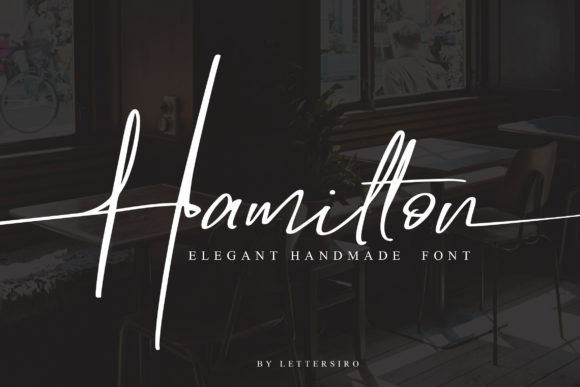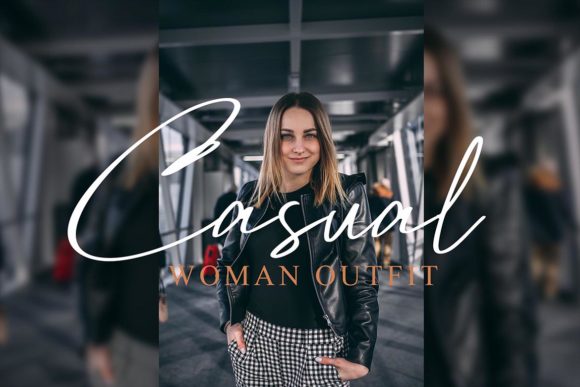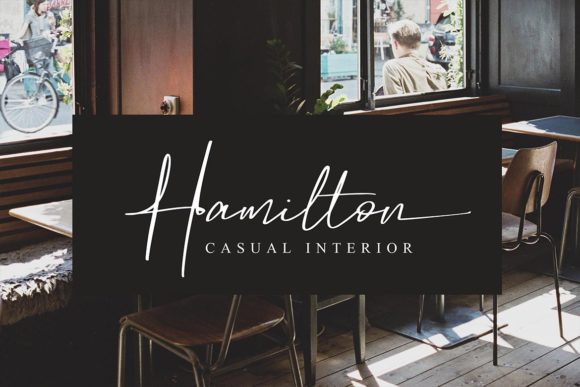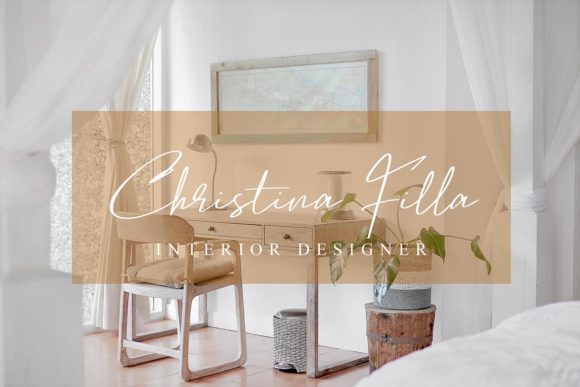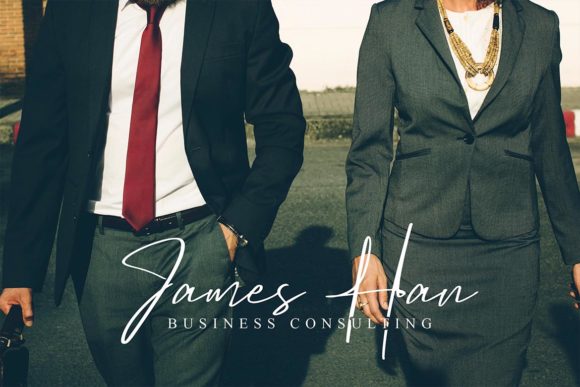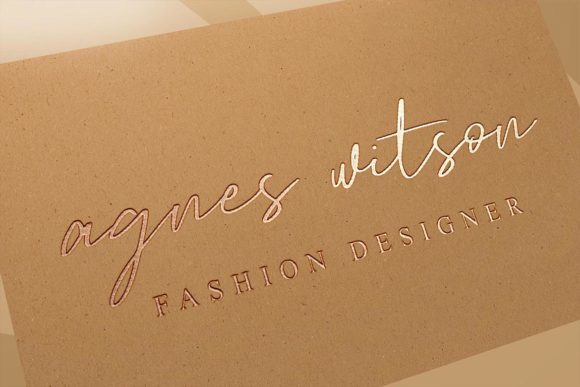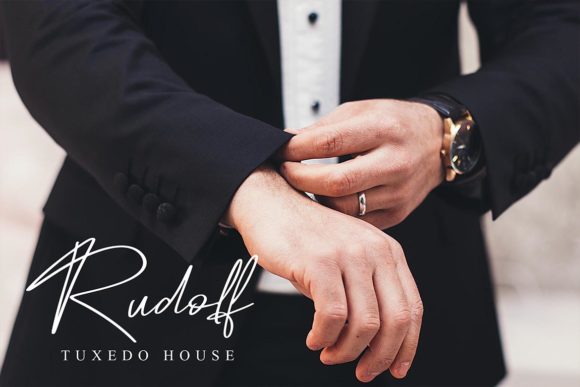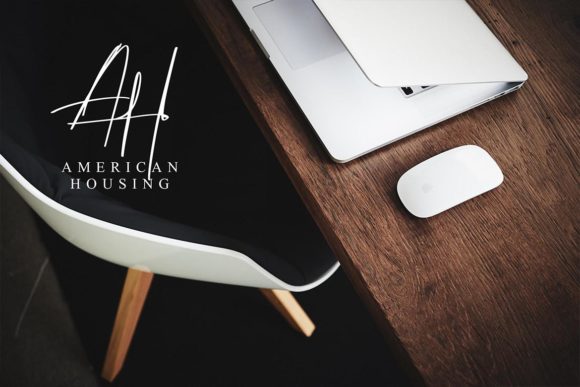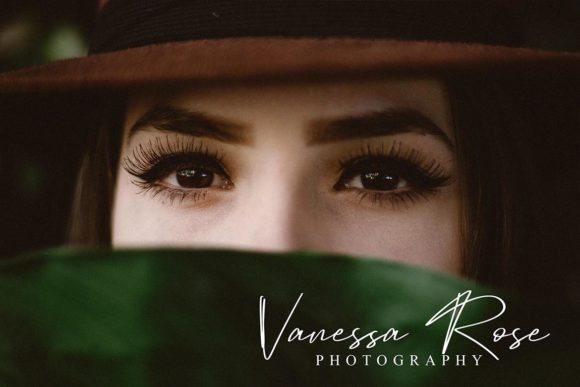
Hamilton Font
About Hamilton Font
The Hamilton is an elegant signature script. It’s perfect for signature purposes, watermarks, photography, business designs, and much more!